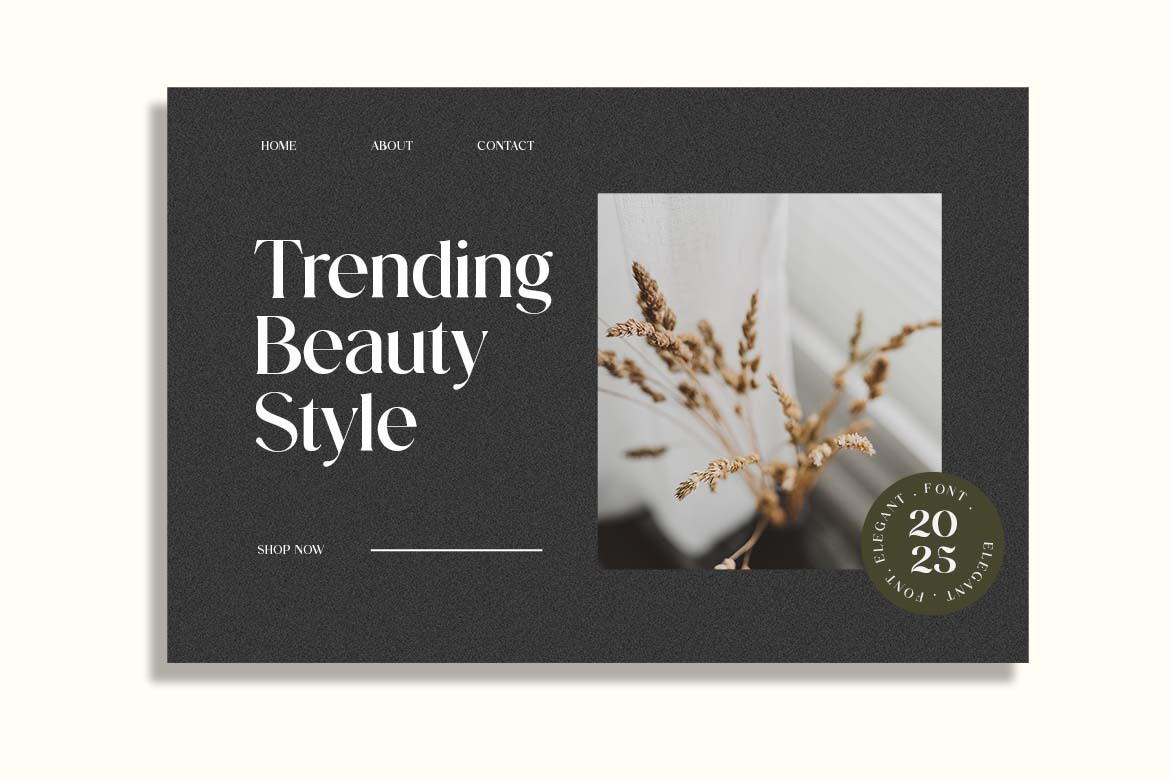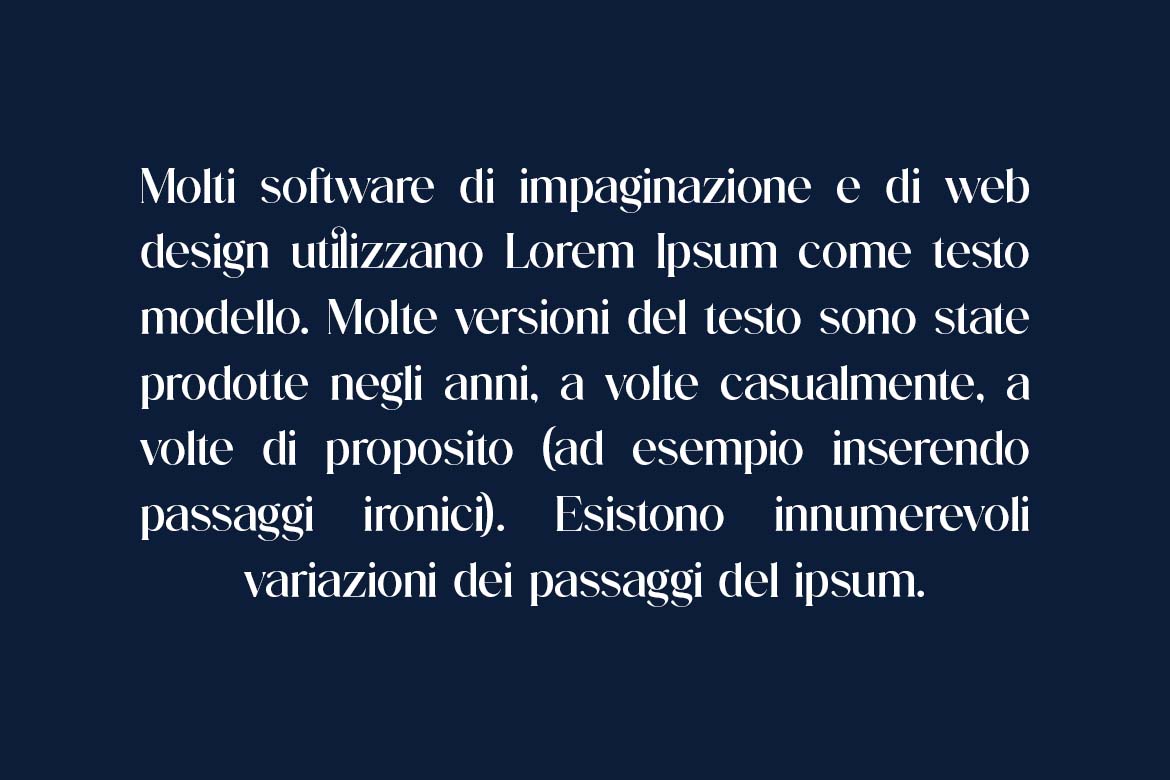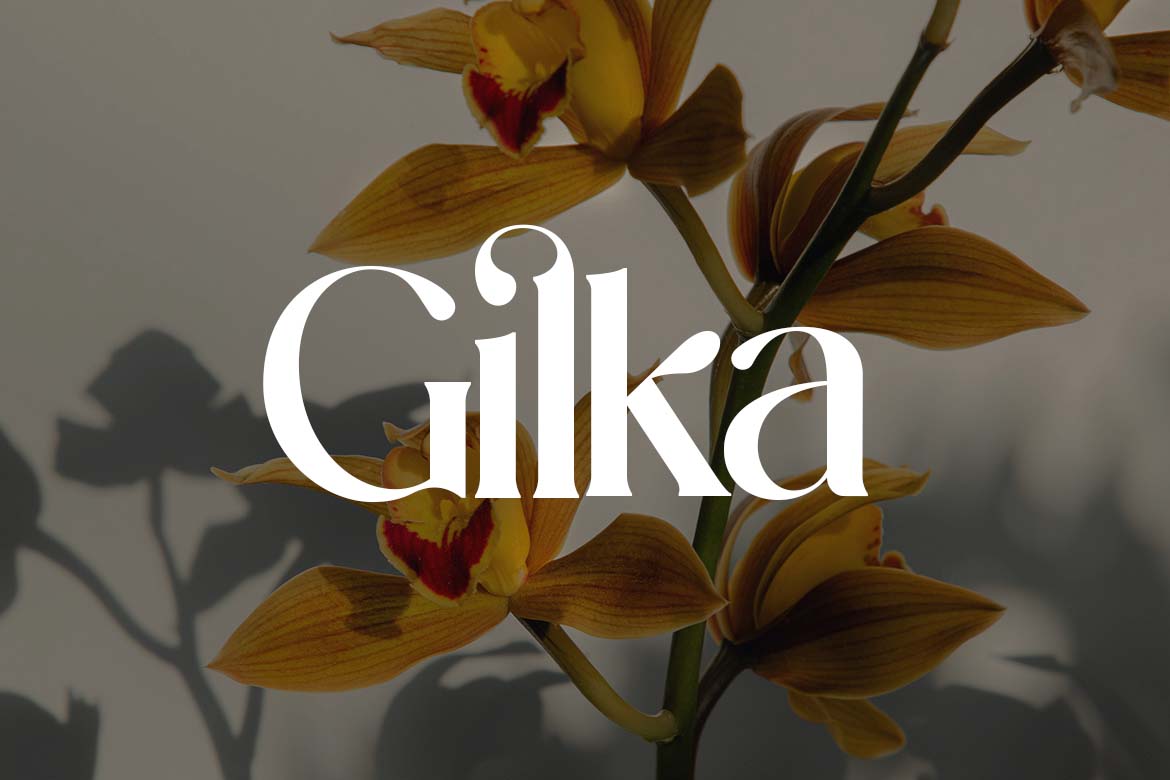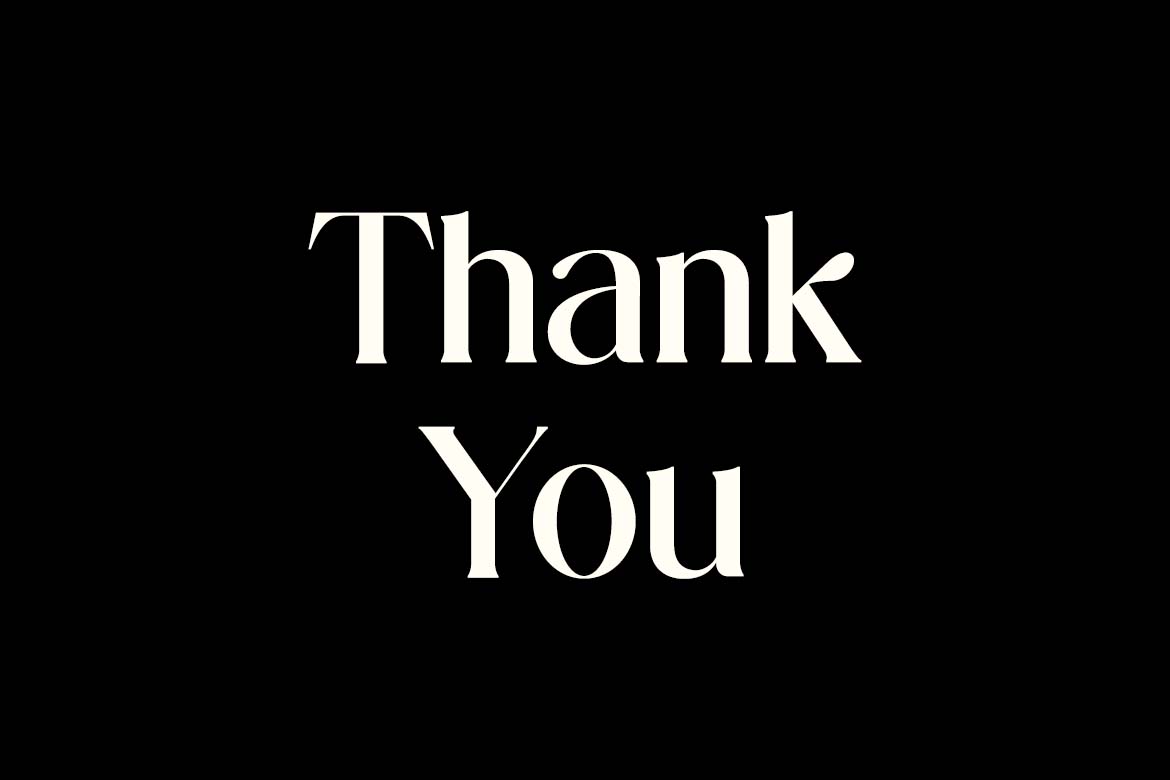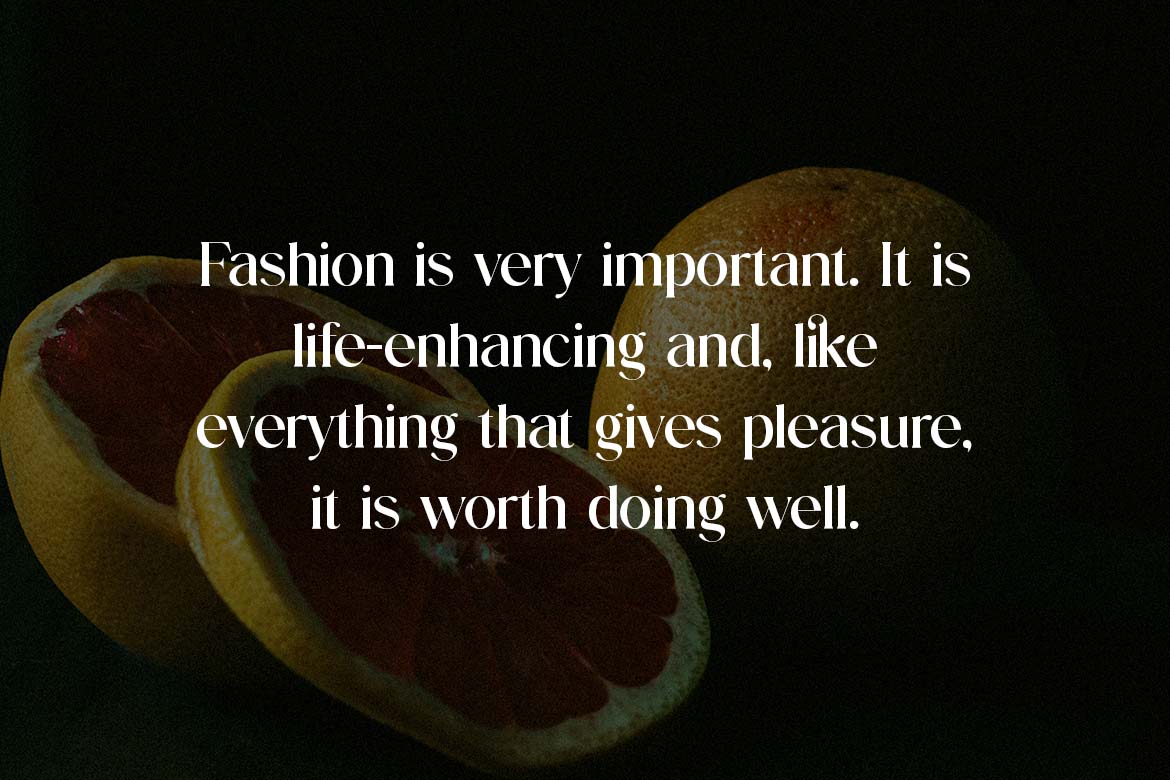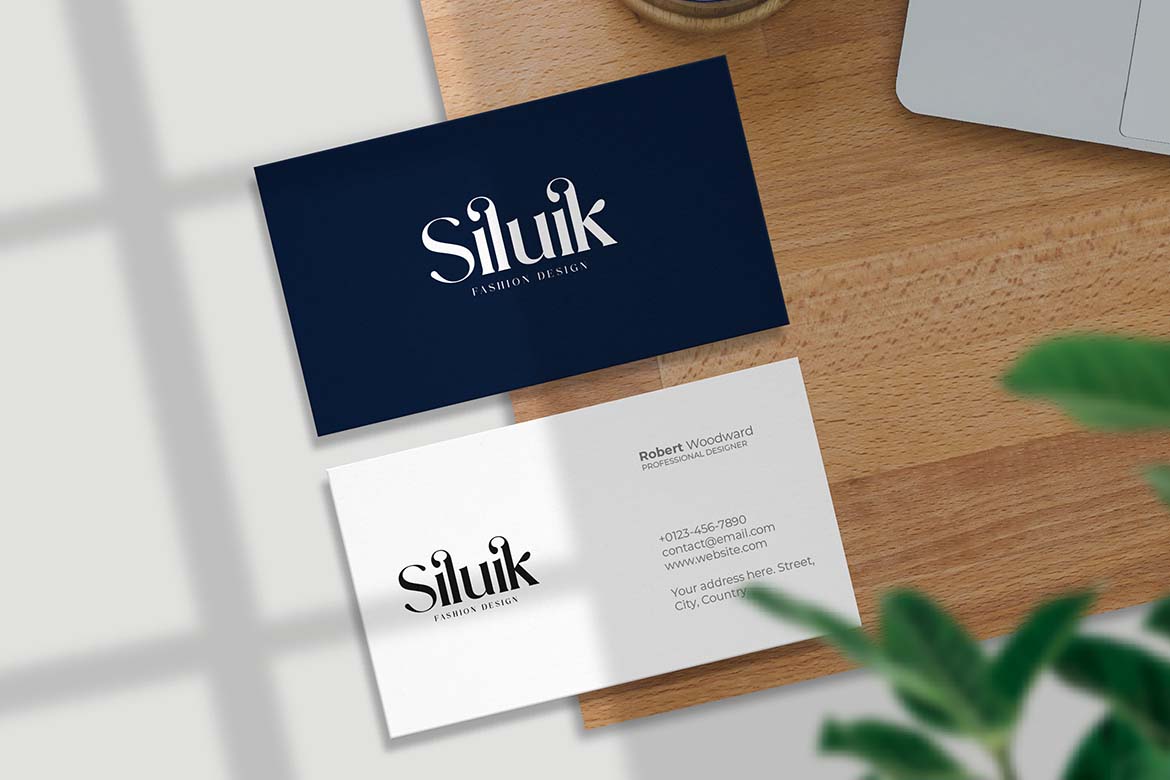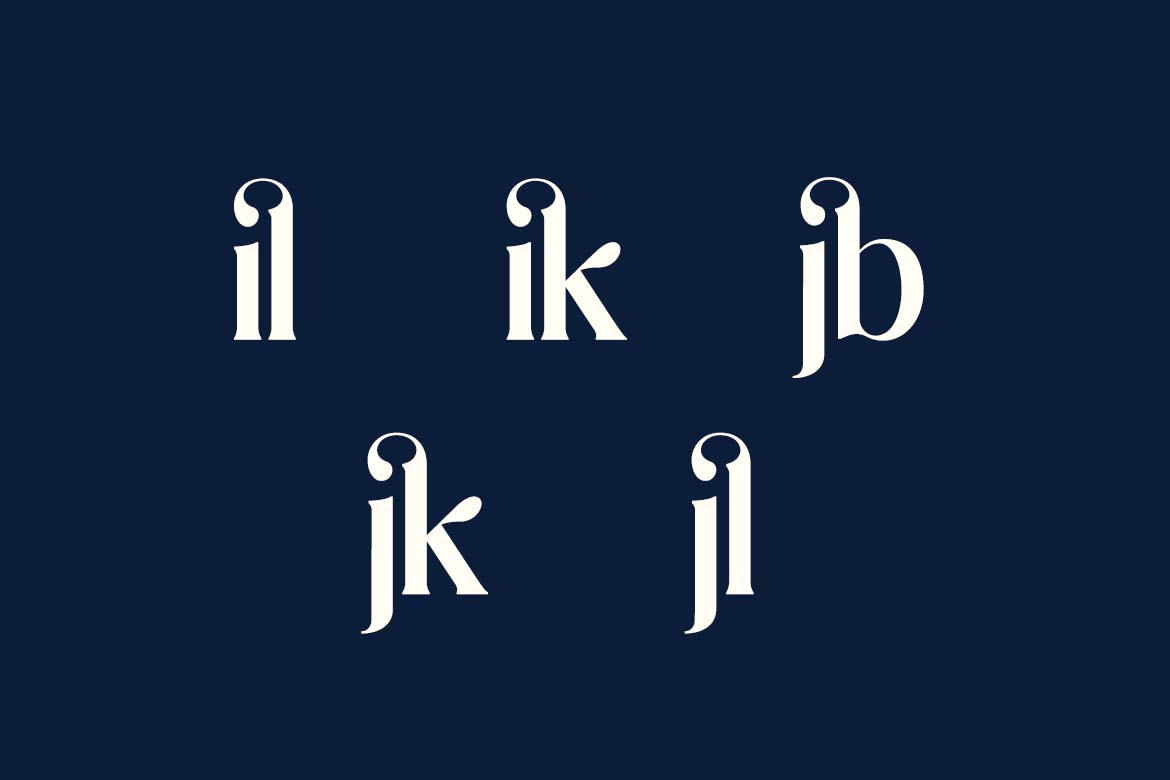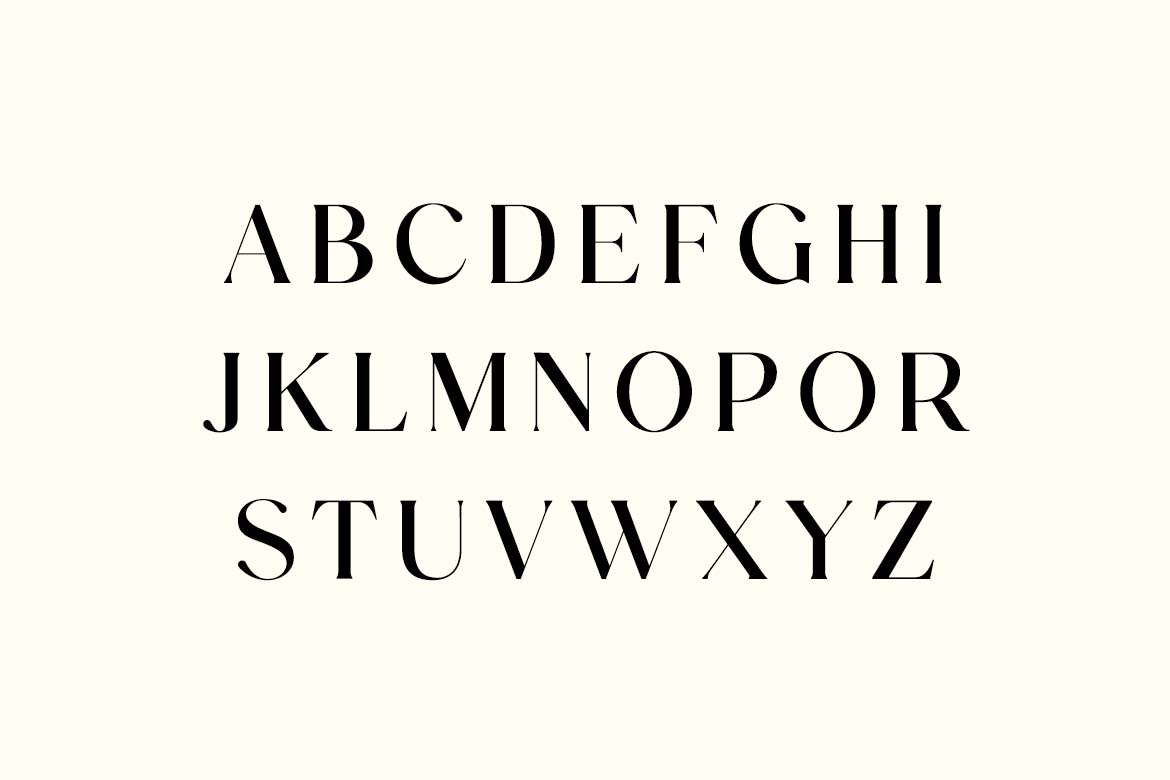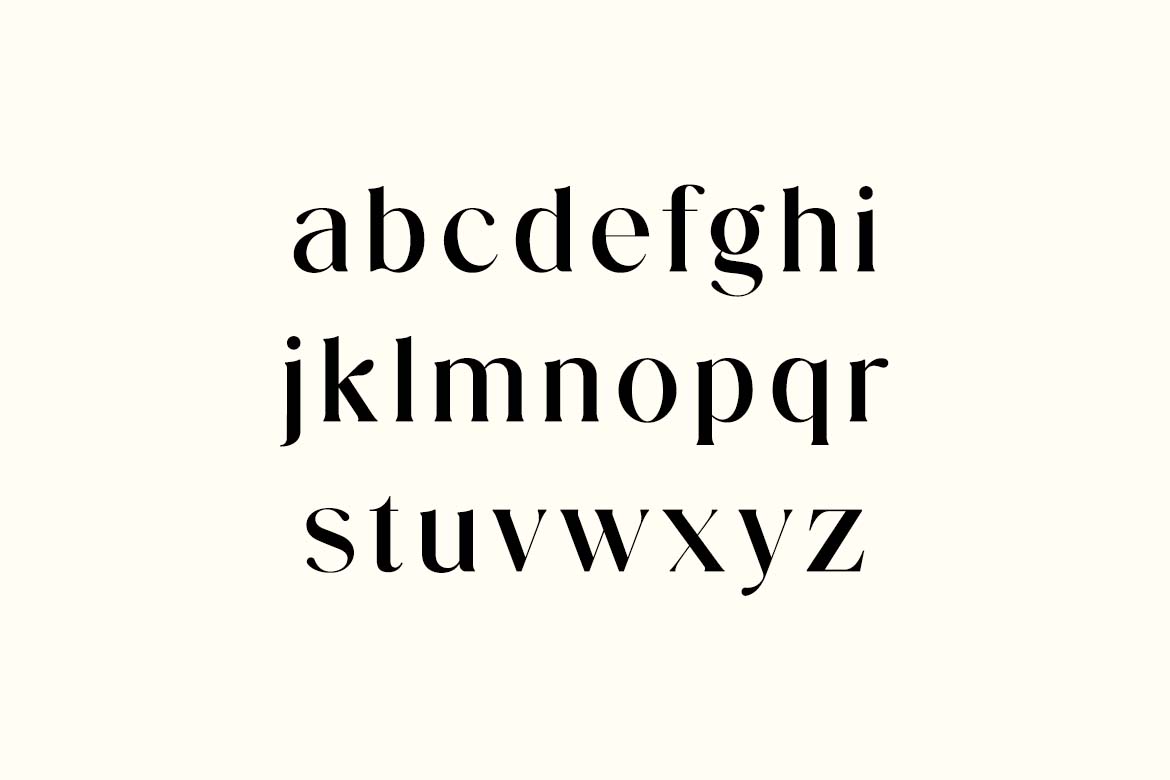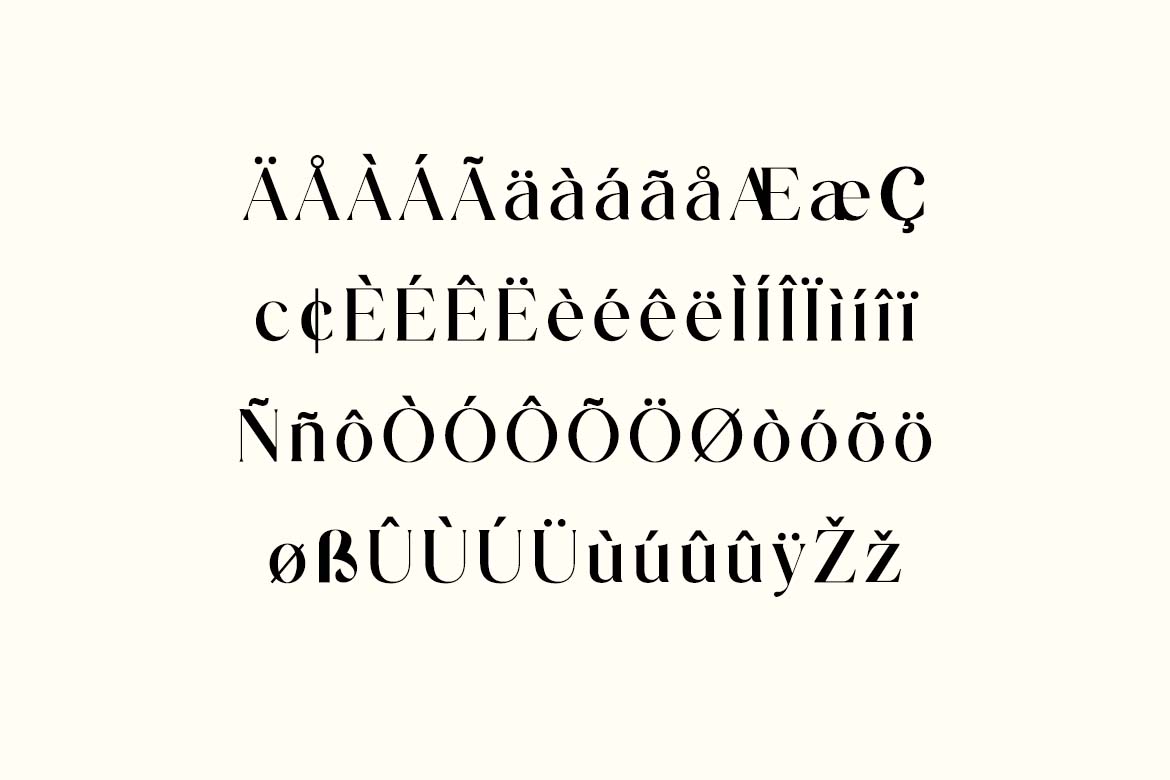
Kinsley Luminox Elegant Luxury Serif Font
Kinsley Luminox Elegant Luxury Serif Font. The modern display font feels beautiful classy, elegant, and stylish. This font is ideally suited for a wide variety of projects, such as signature, stationery, logo, wedding, typography quotes, magazine or book covers, website headers, branding, and more. Also, fashion-related branding or editorial design displays both masculine and feminine qualities.